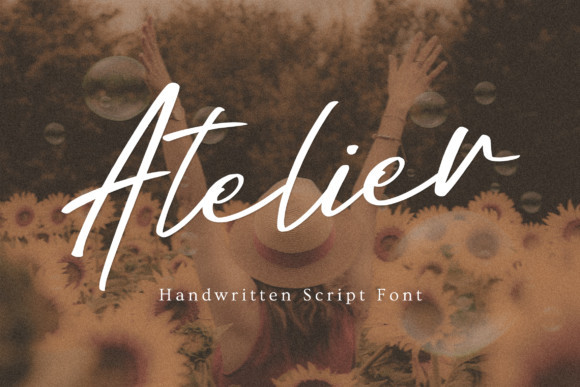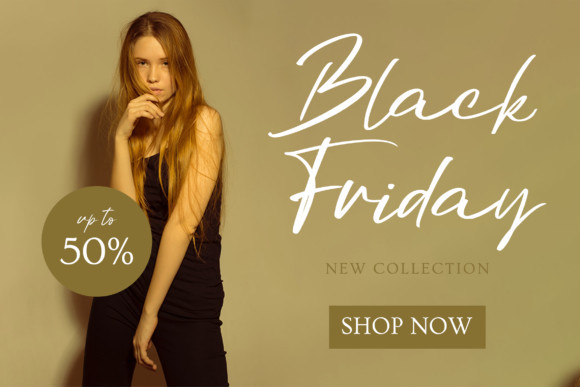
Atelier Font
Atelier is a relaxed and neat handwritten font. No matter the topic, this font will be an incredibly asset to your fonts’ library, as it has the potential to elevate any creation.